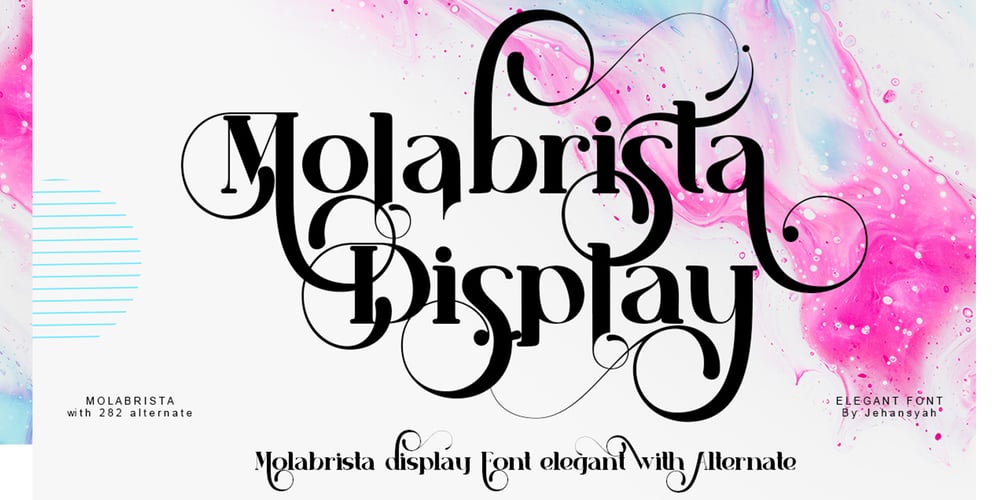
Molabrista Font Family was designed by Ibram Syah and published by Jehansyah. Molabrista contains 1 styles and family package options. Molabrista Display this is a very beautiful serif font, you can enjoy it as an extraordinary work, make this font design your choice as your favorite font, with several alternates that you can combine into the shape you want, to add an elegant and luxurious impression to your design. show,very suitable for any projectInclude :NumericPunctuationLatinAlternateThank you very much